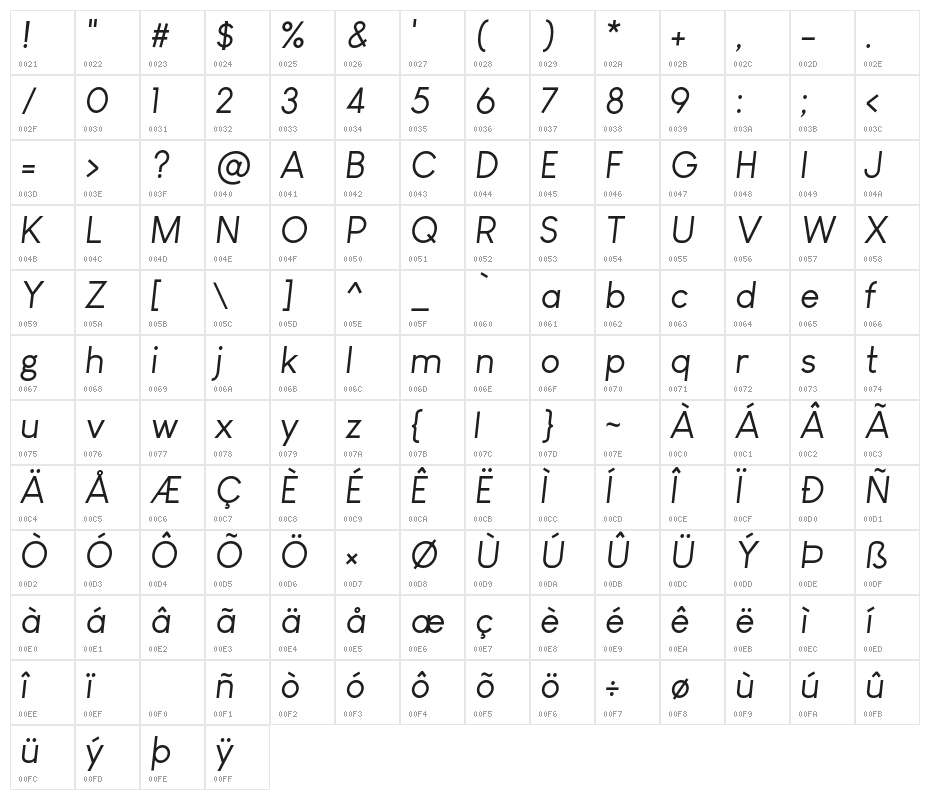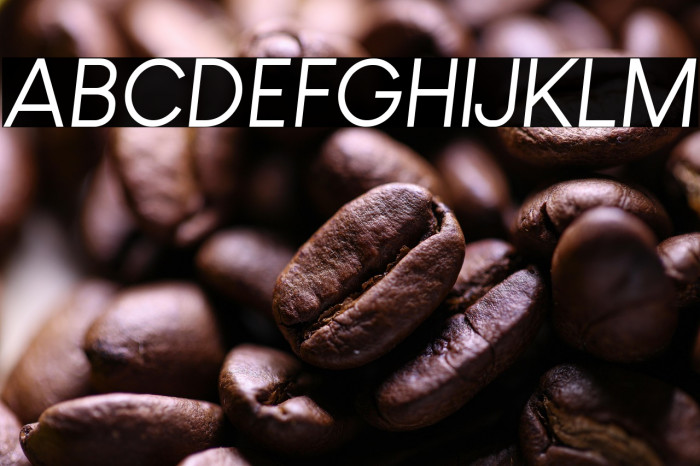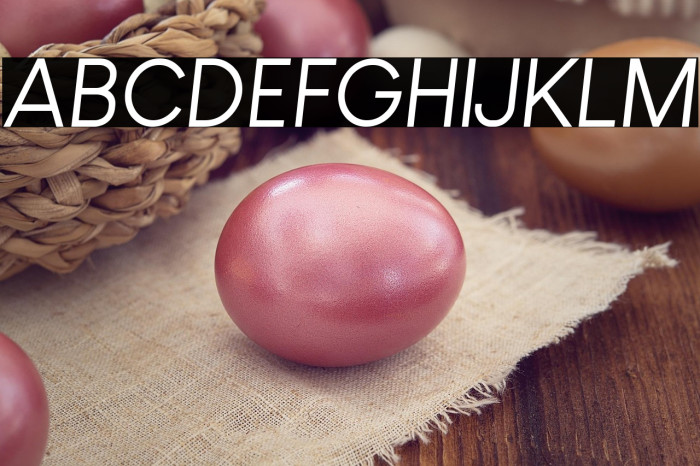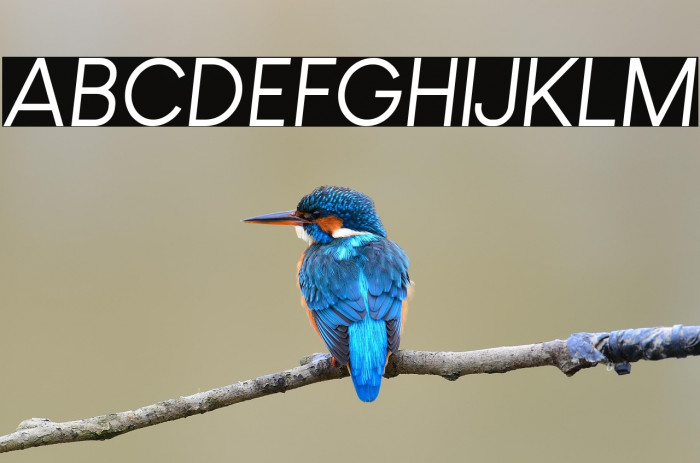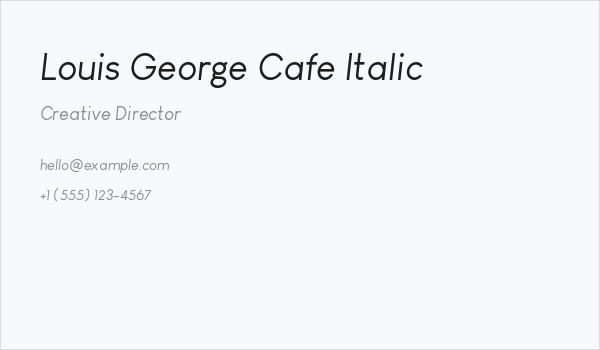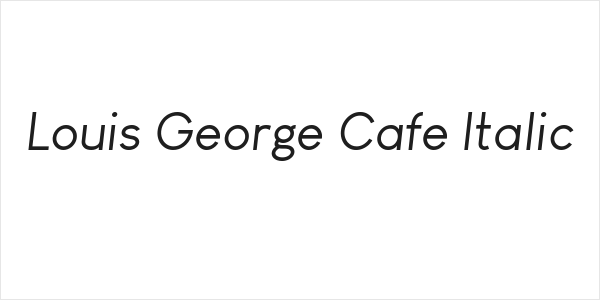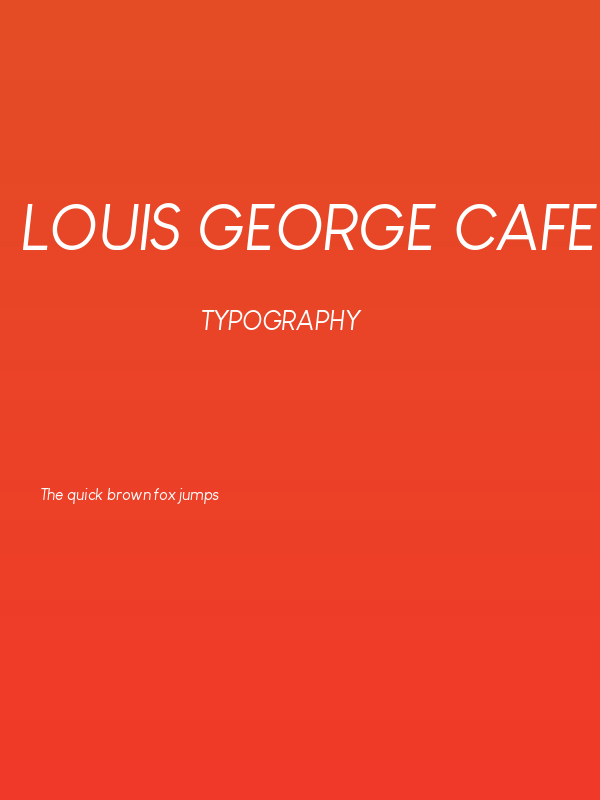
Louis George Cafe Italic Font
Louis George Cafe Italic Description
This font features a sleek and modern design with a subtle italic slant, giving it a dynamic and elegant appearance. The characters are well-proportioned with smooth curves and clean lines, creating a sense of fluidity and sophistication. The uppercase letters are bold and commanding, while the lowercase letters maintain a consistent style with a slightly softer touch. The numerals are clear and easily distinguishable, making them suitable for various applications. The special characters are designed to complement the overall aesthetic, ensuring a cohesive look across all text elements.
| Proposed Projects | Ideal for branding, advertising, and editorial design projects where a modern and elegant touch is desired. |